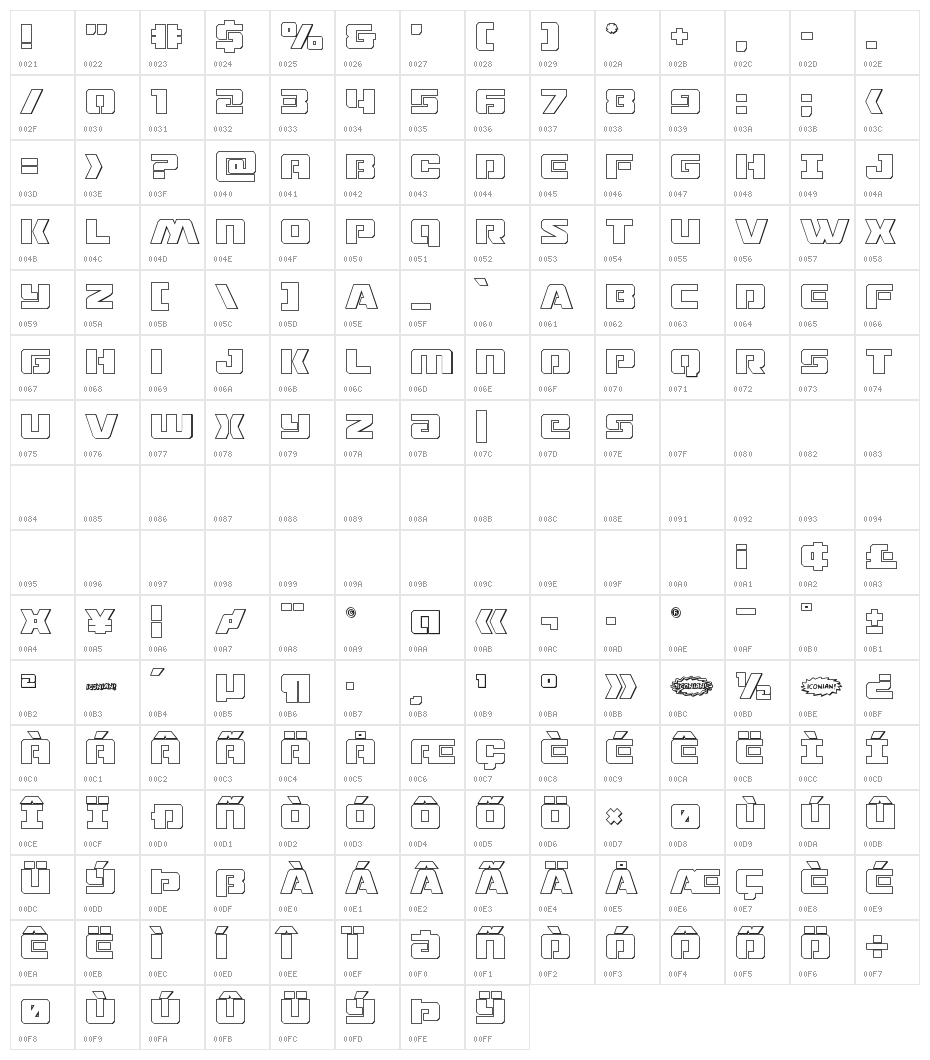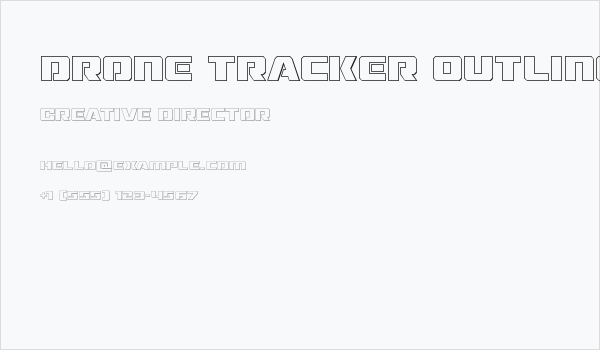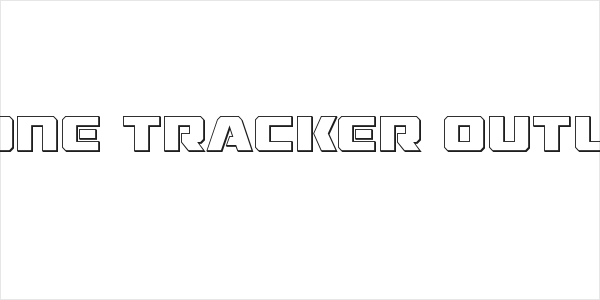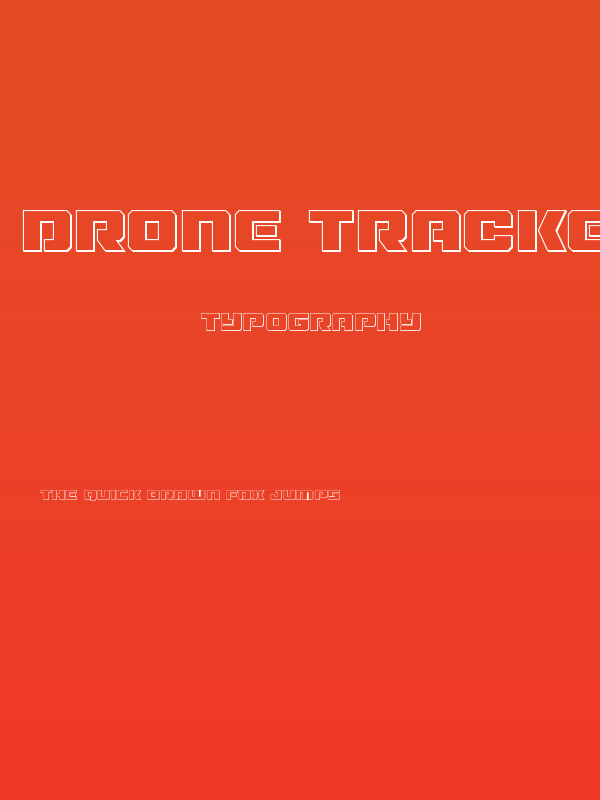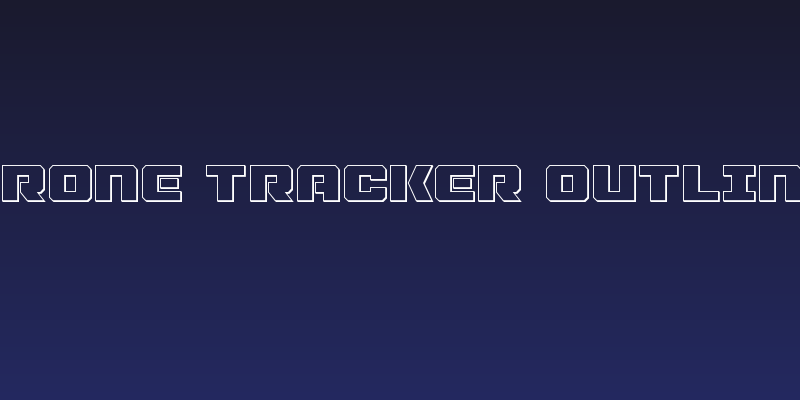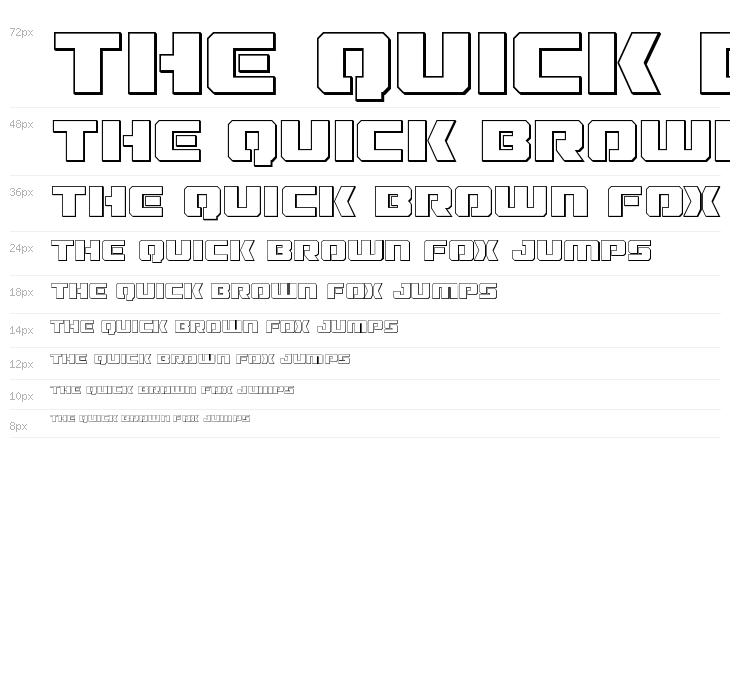
Drone Tracker Outline Font
Drone Tracker Outline Description
This font features a bold, geometric outline style with a futuristic and technical appearance. The characters are constructed with sharp angles and straight lines, creating a sense of precision and modernity. The outline design gives it a hollow look, making it stand out on both light and dark backgrounds. Its uniform stroke width and consistent spacing provide a clean and organized appearance, suitable for digital and print media. The font's distinct style is ideal for projects that require a modern, tech-savvy aesthetic.
| Proposed Projects | Ideal for technology branding, video game titles, sci-fi posters, and digital interfaces. |